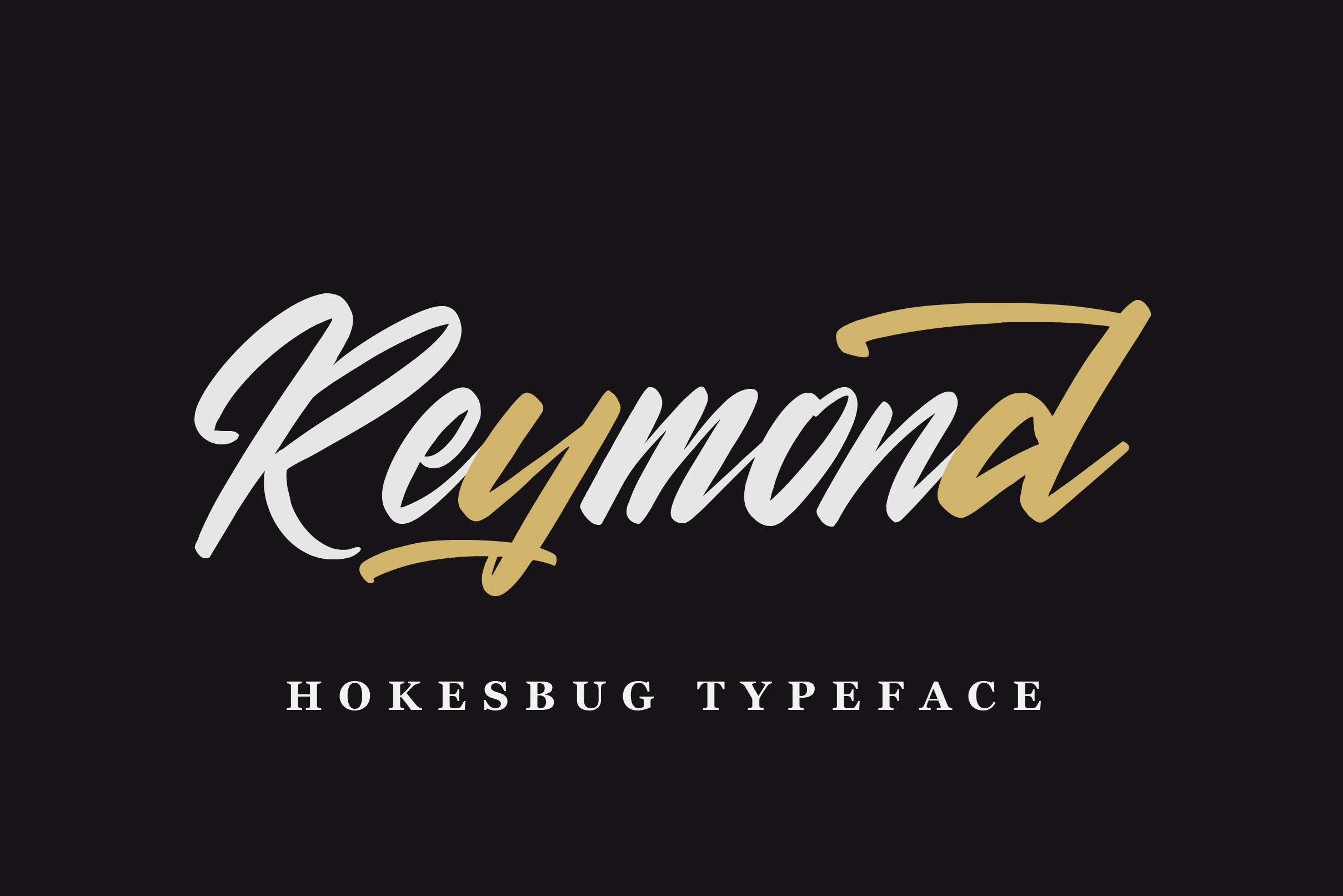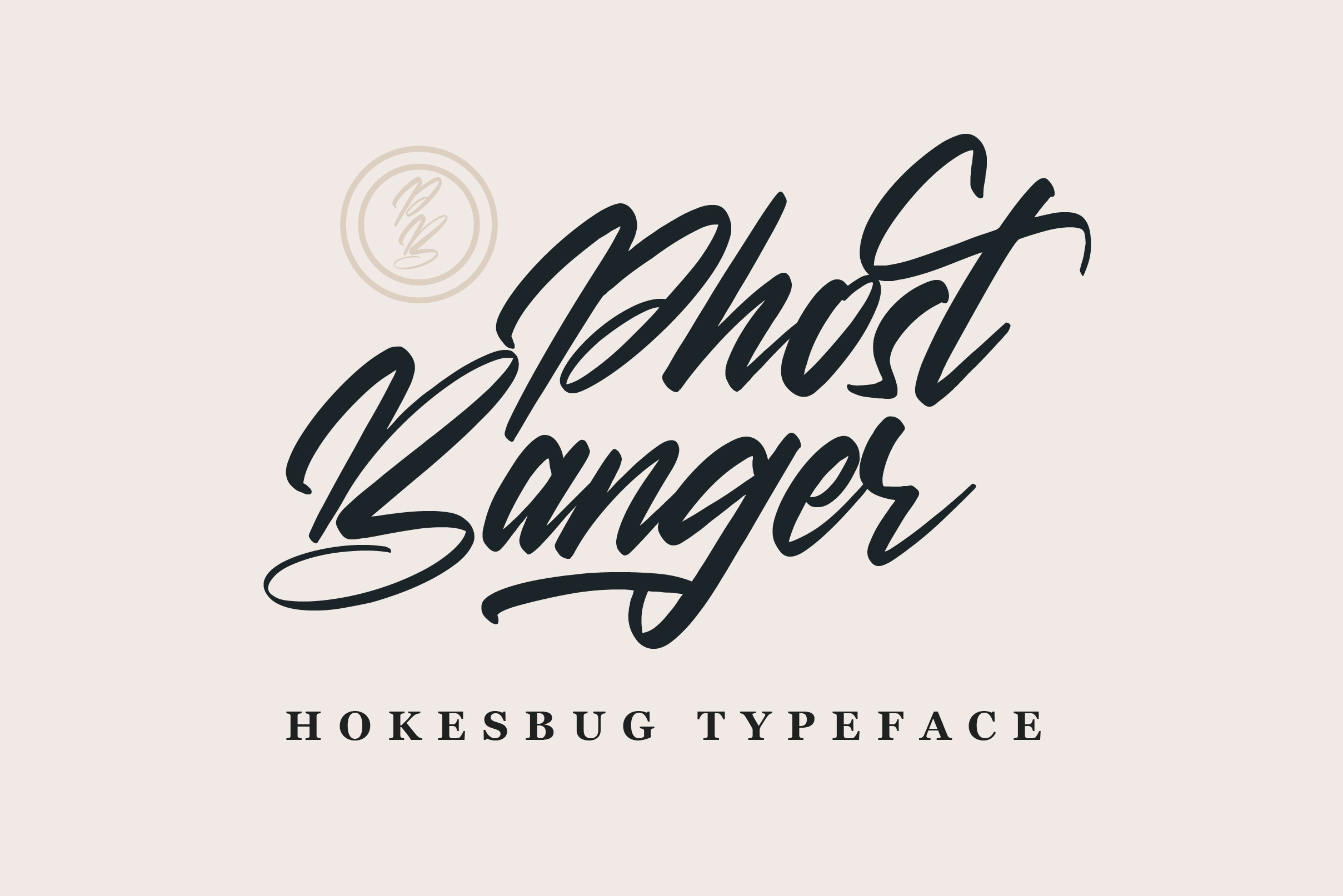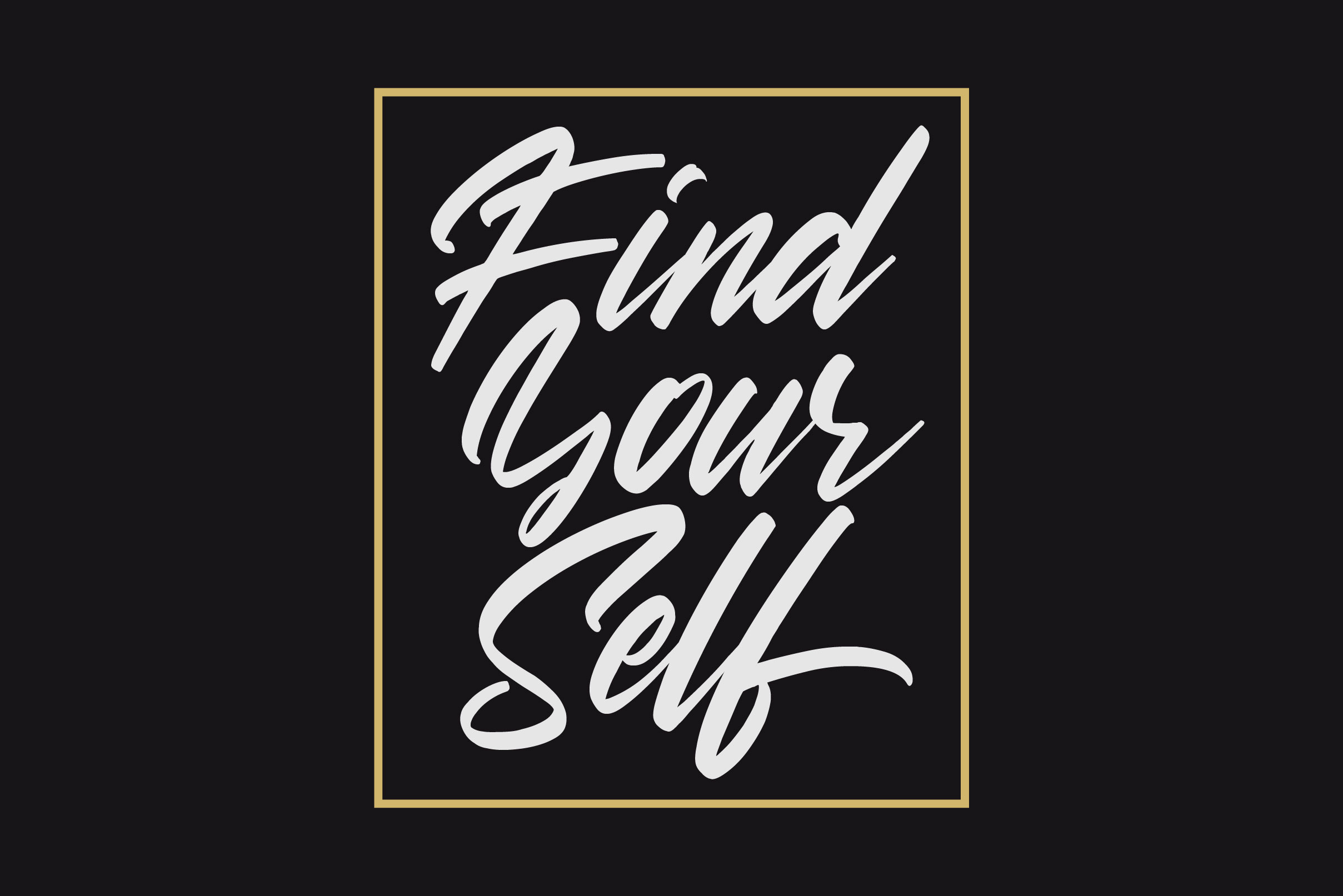
Hokesbug Font
Hokesbug Script Font is a neat and beautiful handwritten font described by an elegant touch, perfect for your favorite projects. Fall in love with its incredibly distinct and timeless style, and use it to create spectacular designs!
– Uppercase, Lowercase, Numeral & Punctuation
– Alternate Letters, Ligature & Swash/Tail